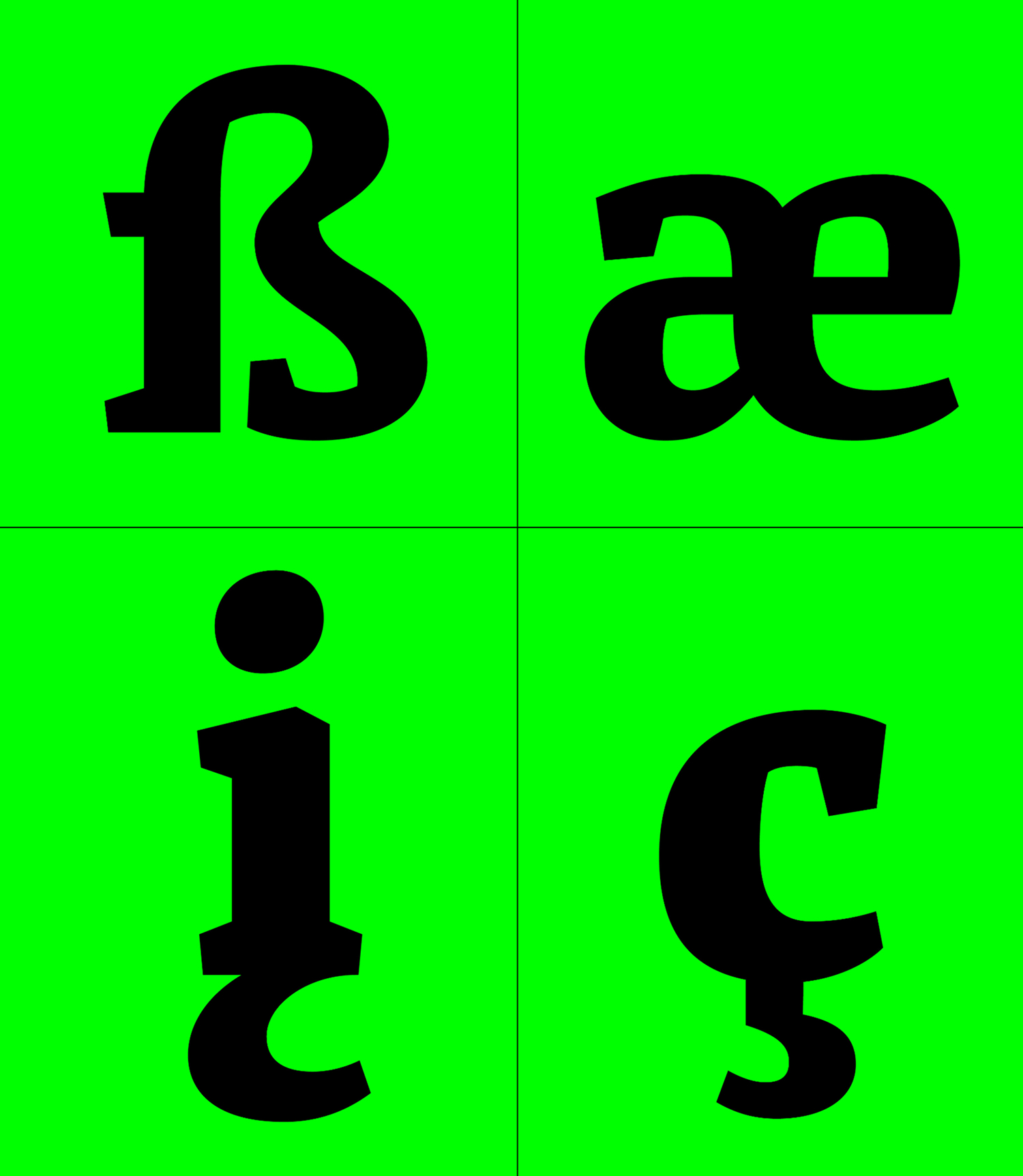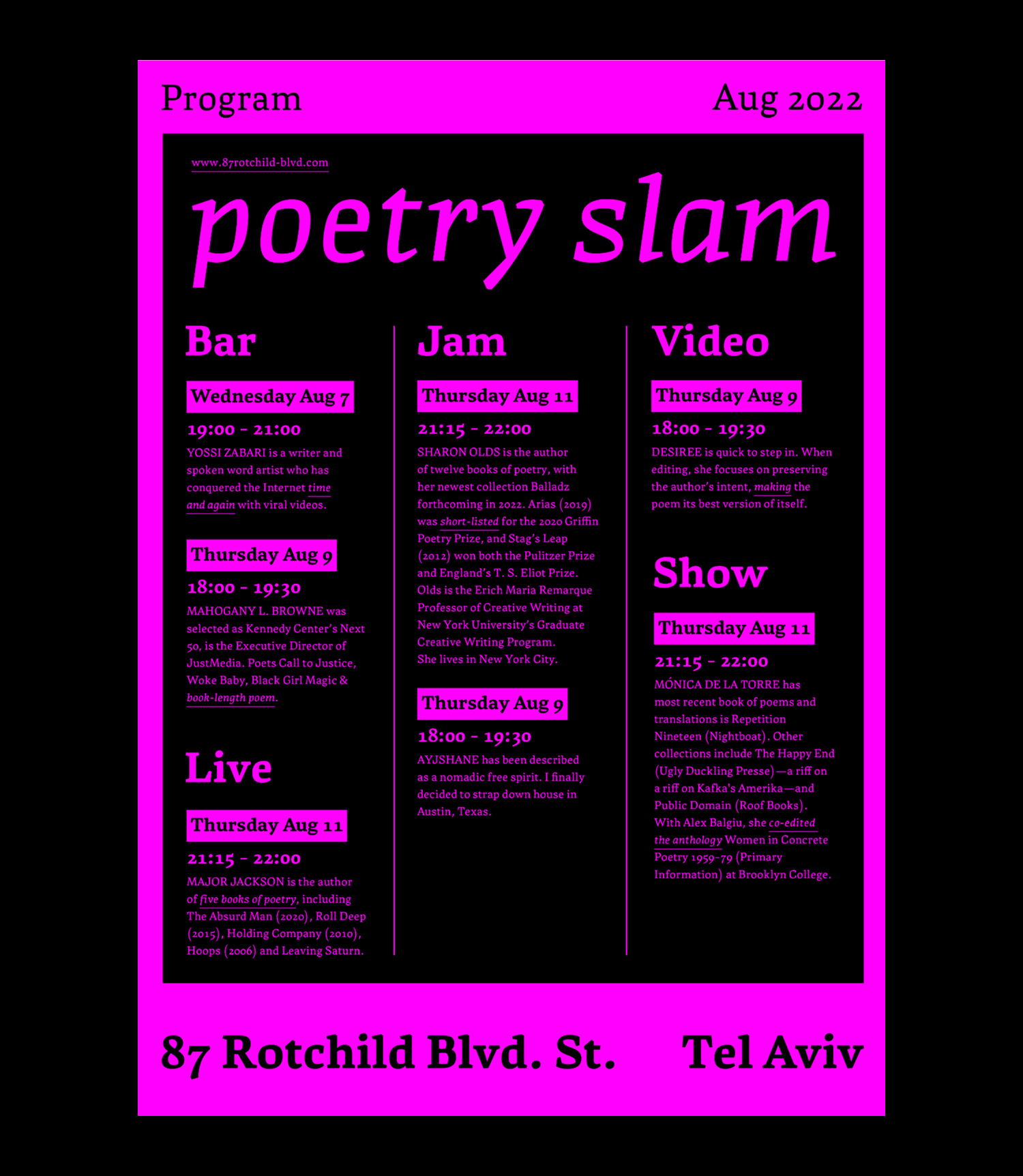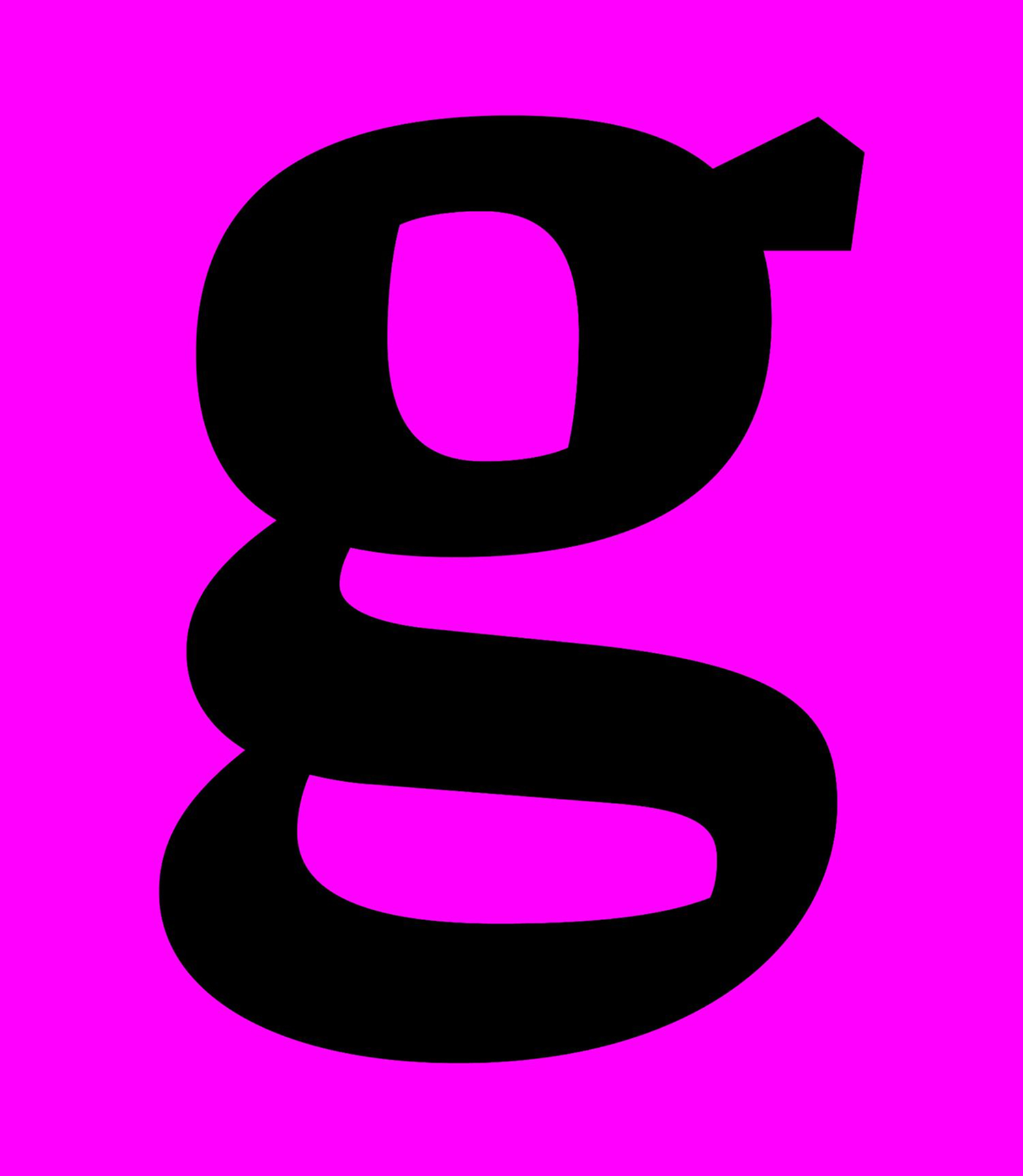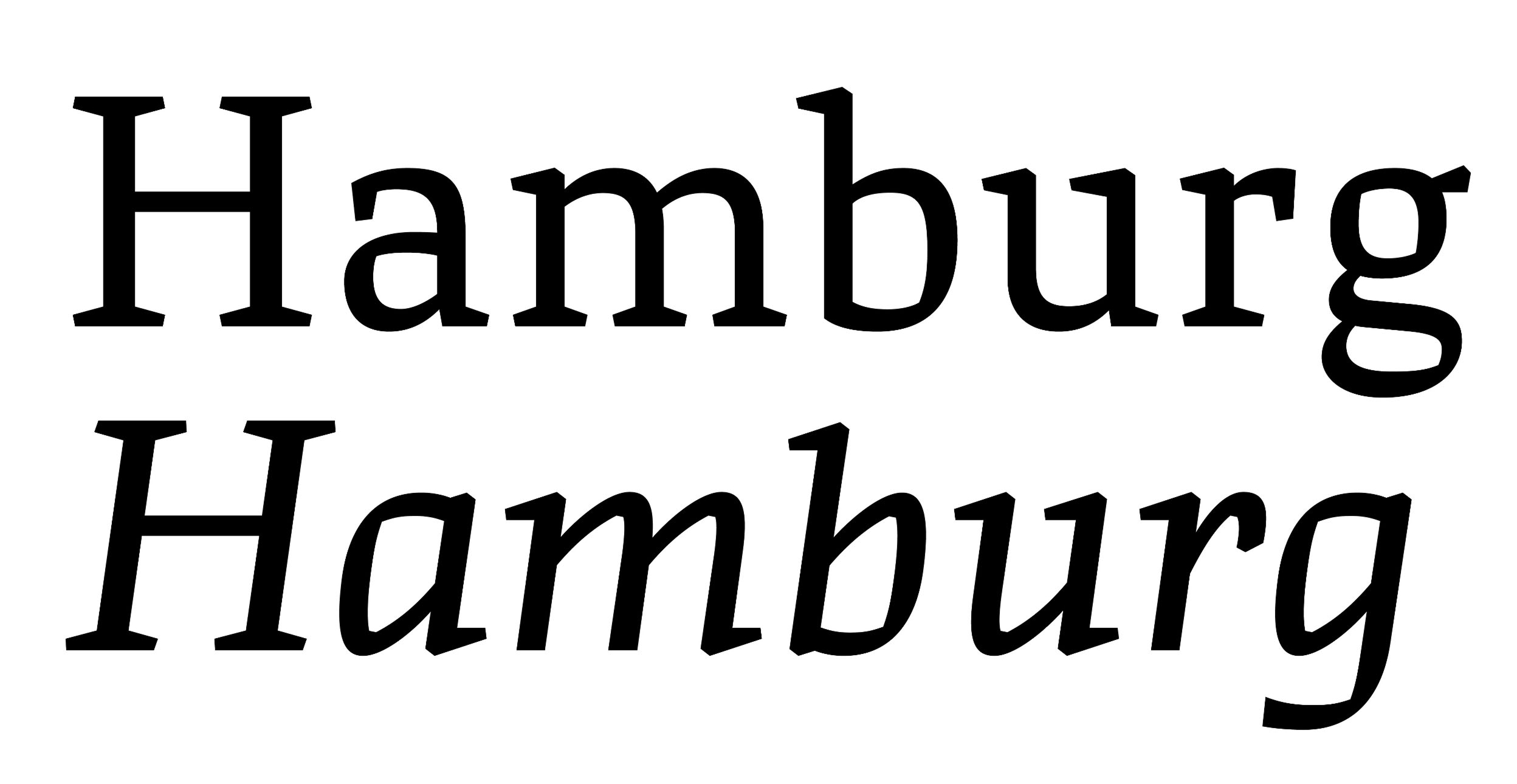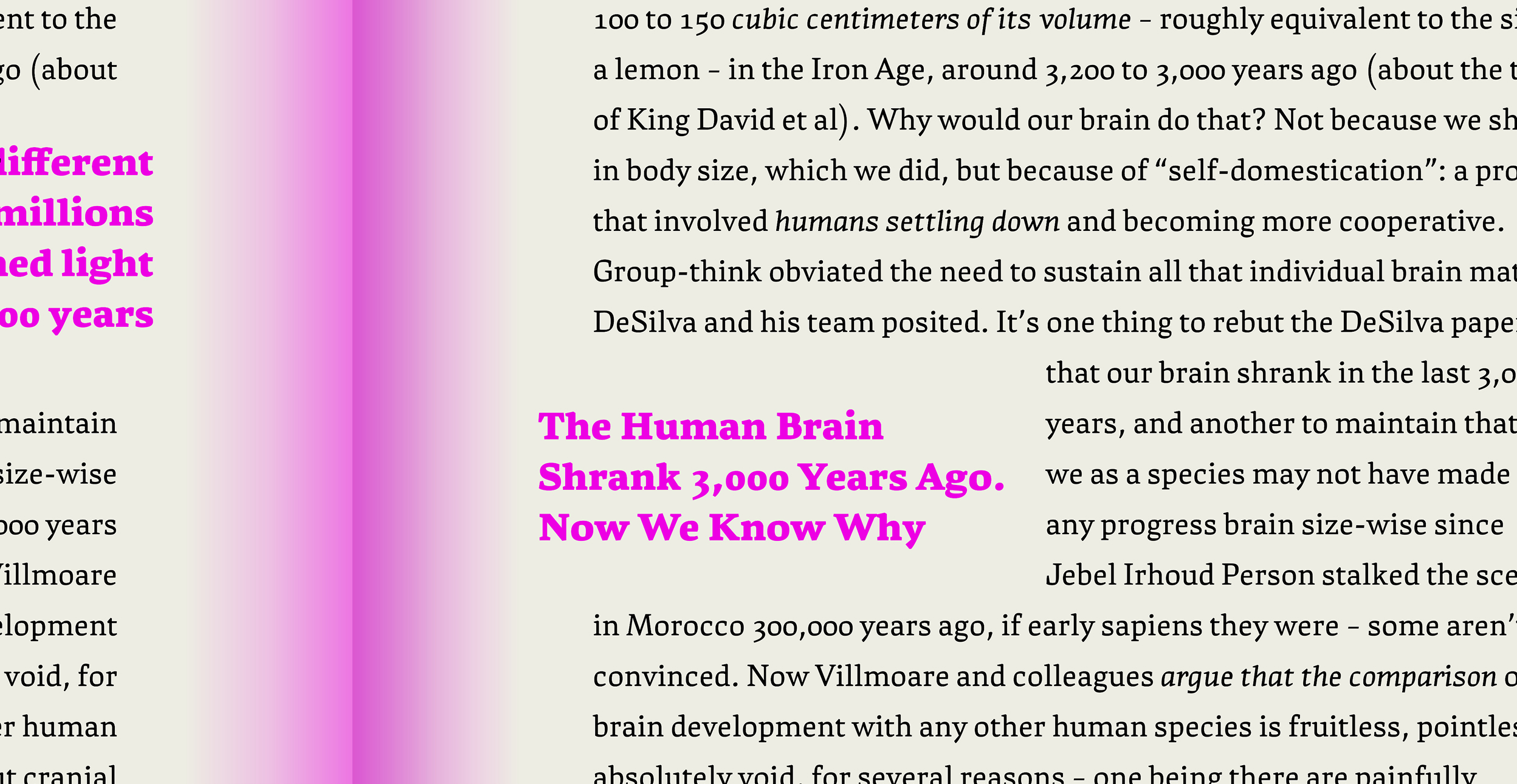
What if UrbanDictionary.com was an actual printed dictionary? UrbDic is a translation contrast serif typeface, intended for dictionaries and other tiny text formats. It has an overall low contrast, and short ascenders and descenders, which allows it to fit more text on the page. It also has a variety of weights and styles. UrbDic is both traditional and contemporary, with sharp edges, as if it is drawn with a Sharpie, but also has a classic touch about it. It is good for small text sizes (7-9 pt) but also works great in titles (20-24 pt). It is perfectly suitable for use in magazines, fanzines, posters, and other formats.
Typeface: Werd
Designed by: Nir Zabari Yenni
Mentored by: Hannes Famira (Type@Cooper)
Year: 2022
Languages: Extended Latin
Werd: a translation contrast serif typeface
Werd is a translation contrast serif typeface, intended for dictionaries and other tiny text formats. It has an overall low contrast, and short ascenders and descenders, which allows it to fit more text on the page.